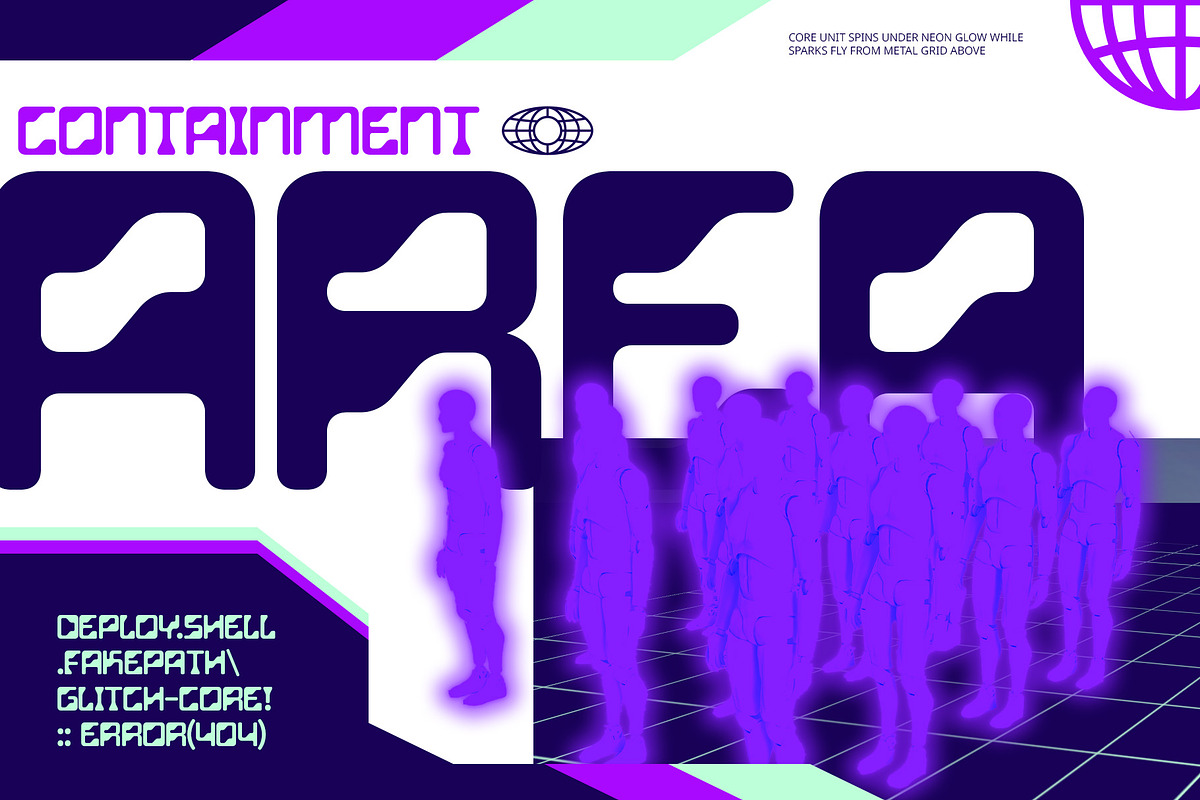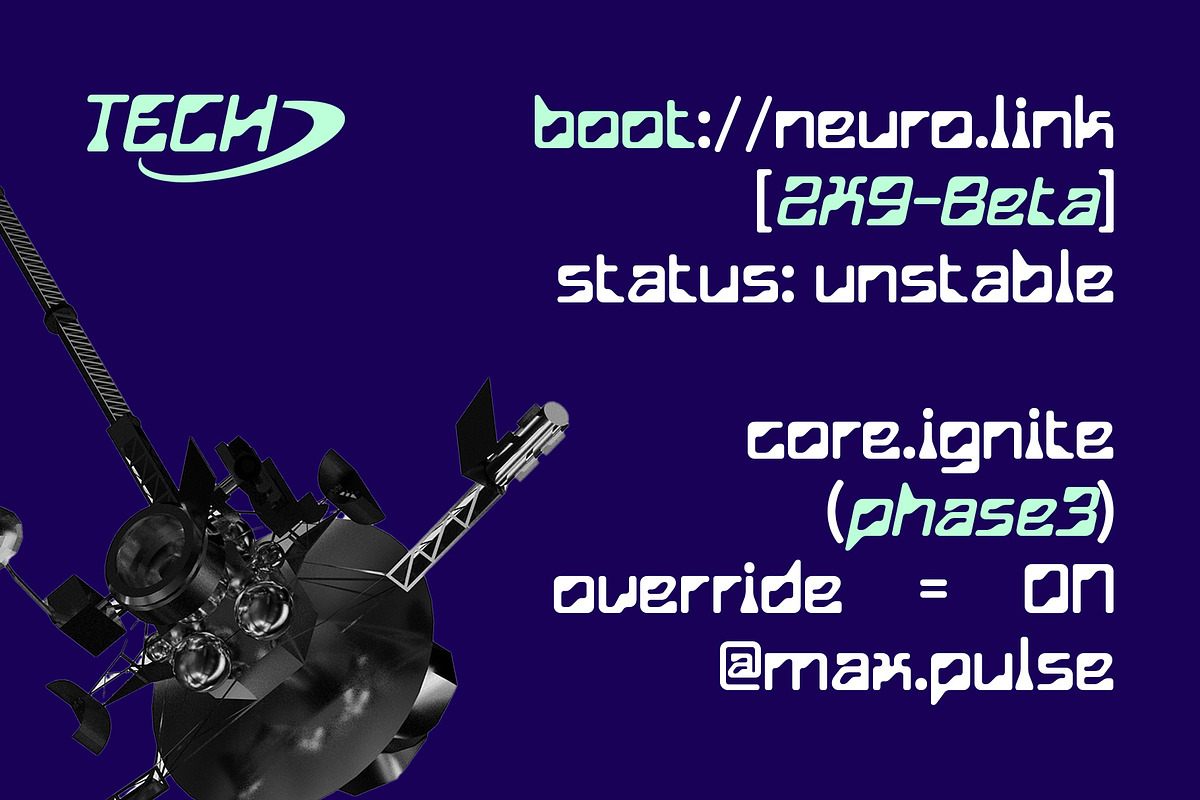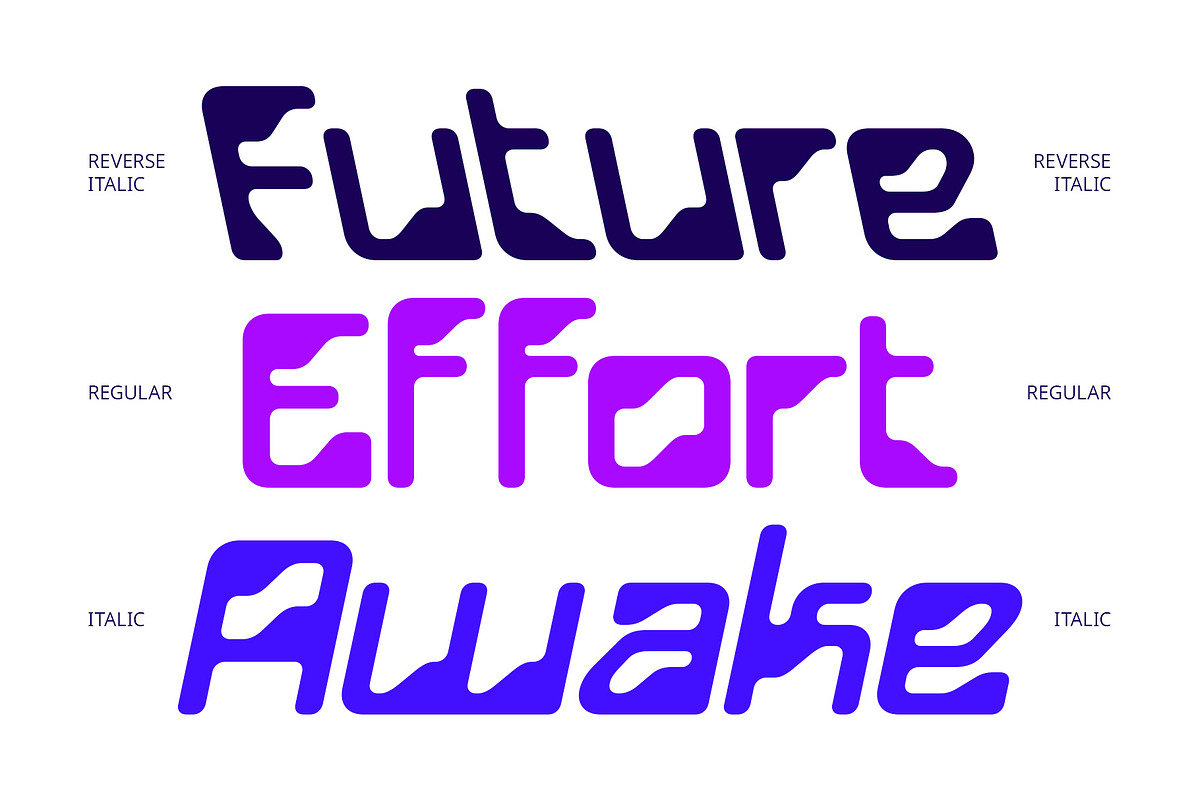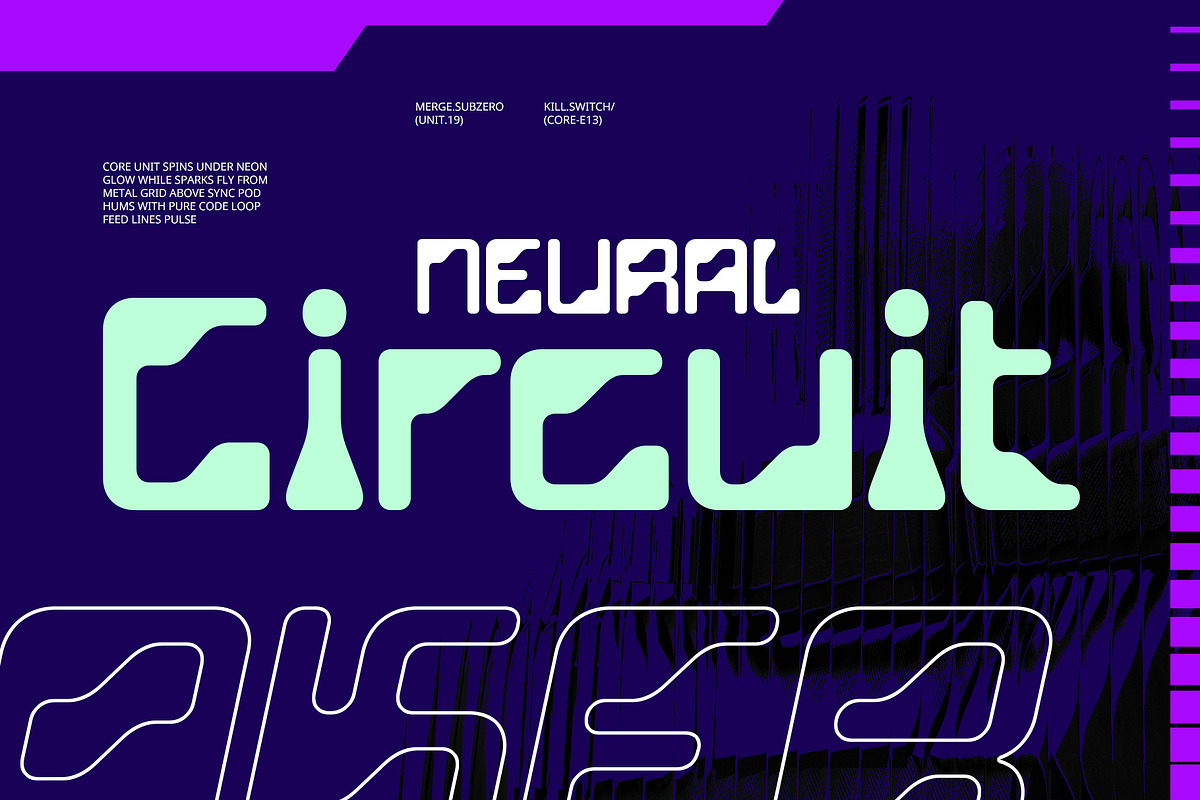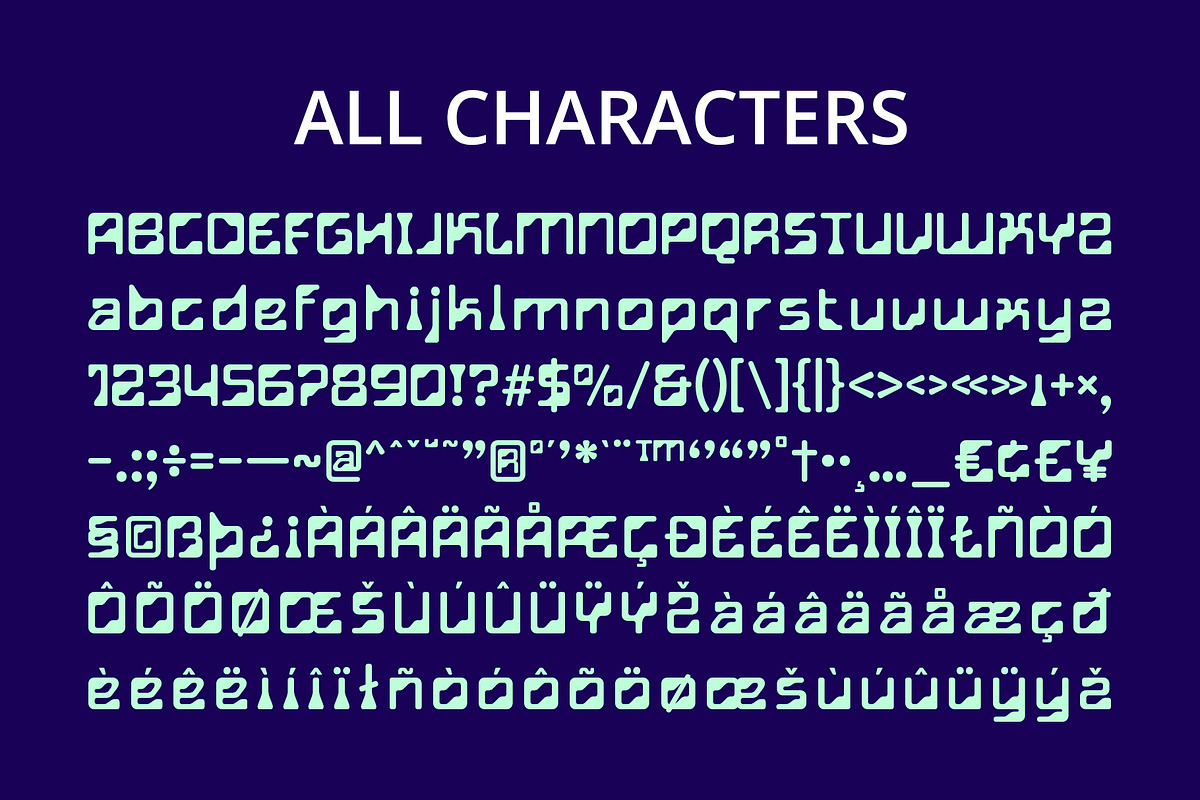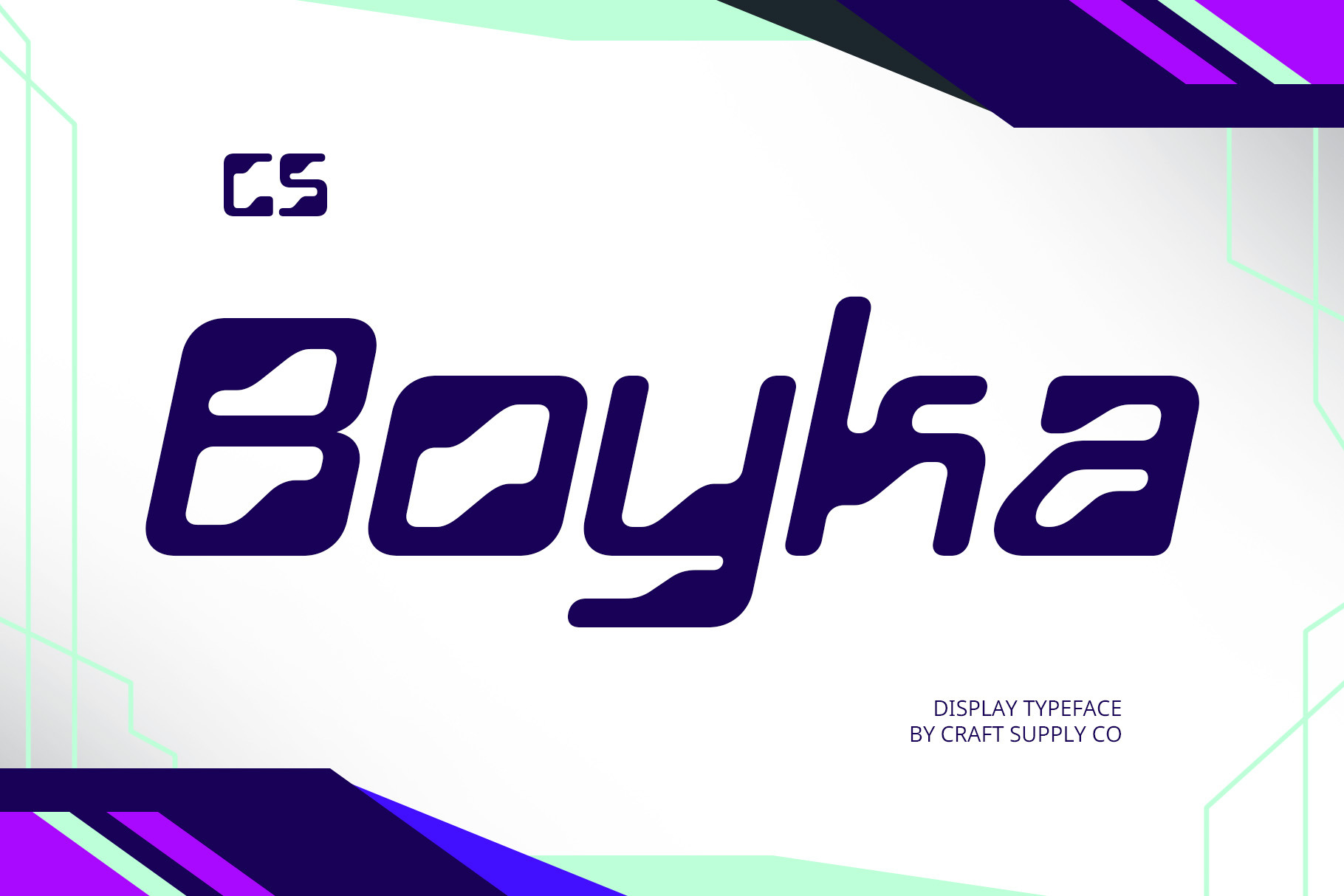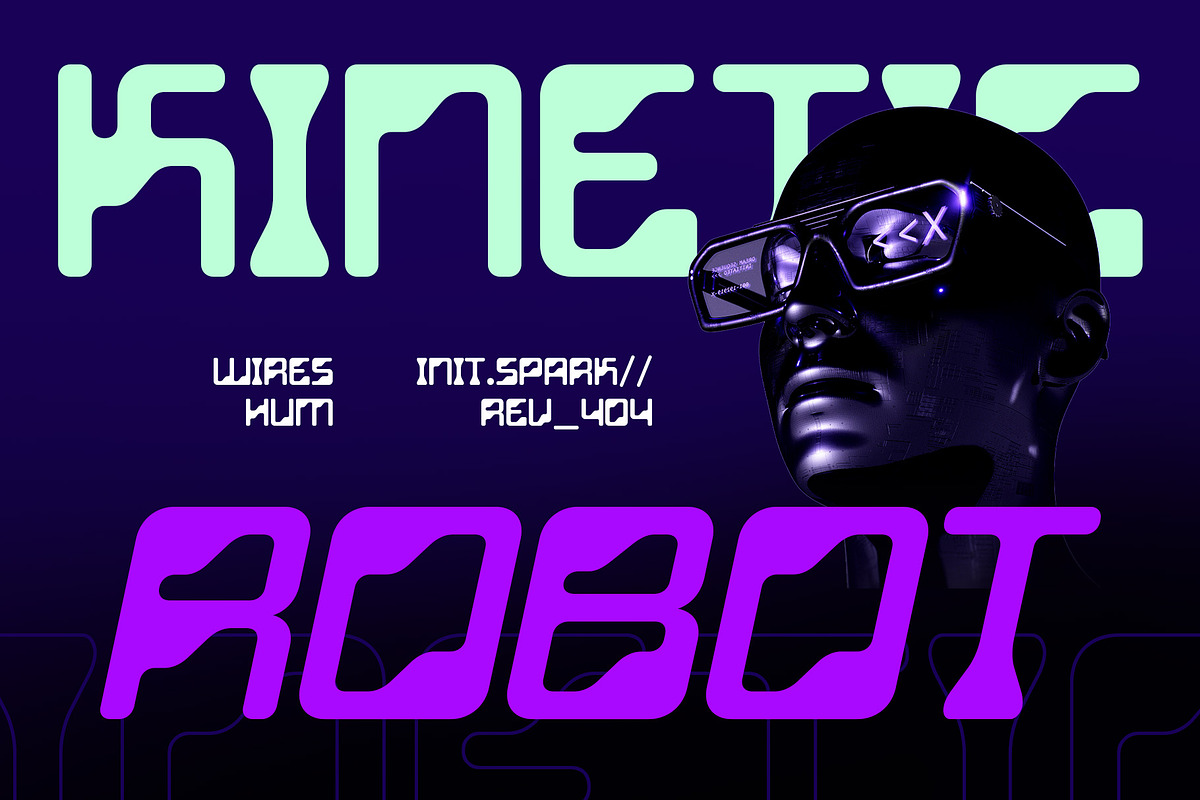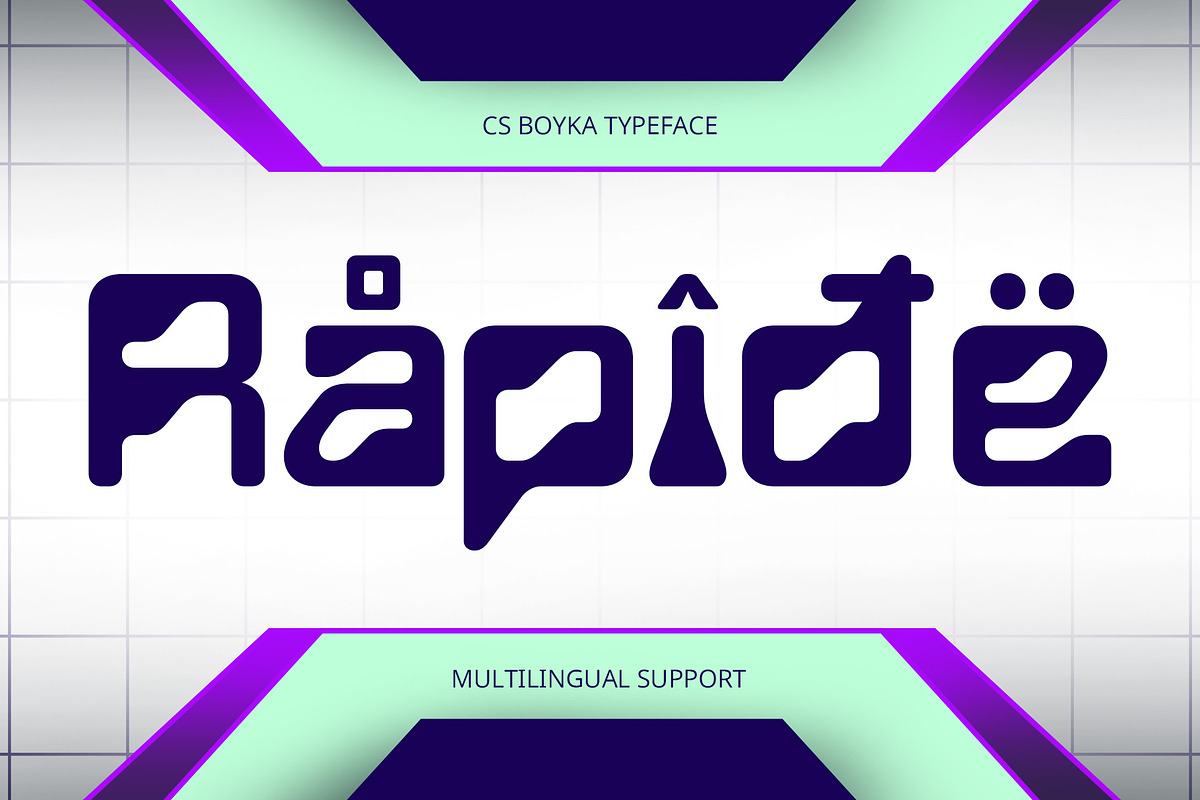
CS Boyka – Techno Font
CS Boyka – Techno Font: Sharp Vision from the Future
Futuristic Form with a Digital Edge CS Boyka is a modern display font designed with a bold, techno-inspired aesthetic. Featuring sharp angles, geometric shapes, and structured forms, it reflects the language of machines, digital systems, and futuristic environments.
Minimalist and Tech-Driven Style Rooted in a minimalist digital aesthetic, CS Boyka embraces simplicity with precision. Its clean lines and angular contours echo the design principles of modern technology, making it perfect for sleek, high-tech visual identities.
Clever, Mysterious, and Visionary Feel With a look that feels like it belongs to a digital interface or sci-fi universe, CS Boyka delivers a mysterious and commanding presence. It’s the kind of font that seems to emerge from a coded future or alternate dimension—ideal for imaginative and tech-forward designs.
Perfect for Tech Branding and Sci-Fi Themes Whether used in futuristic posters, game interfaces, UI/UX design, or tech product branding, CS Boyka brings a cutting-edge vibe. It supports innovative storytelling and visual direction that needs to feel modern, edgy, and visionary.
Engineered for High-Impact Display Design CS Boyka’s unique construction makes it highly effective in bold applications. It performs best in display roles where its futuristic and assertive personality can shine—bringing clarity, style, and attitude to every letter.